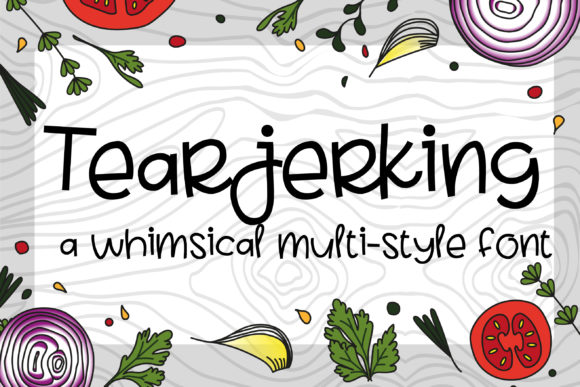
Dive into the enchanting world of Tearjerking Font, a stunning script font family that evokes emotions with every stroke. Created by the talented minds at Illustration Ink, this font is a true masterpiece, seamlessly blending serifs, script elements, and sans serifs into a cohesive work of art.
With its playful and quirky personality, Tearjerking Font captivates the heart with its unique charm. Each character dances and flows, exuding a touch of nostalgia and a dash of whimsy. Whether you're creating heartfelt messages, designing captivating logos, or crafting beautiful invitations, this font will add an undeniable charm to your projects.
Immerse yourself in the versatility of Tearjerking Font, a font that effortlessly adapts to a wide range of design styles. From delicate wedding invitations to bold and eye-catching headlines, this font shines in its ability to transform your words into captivating visual expressions. Its adaptability makes it the perfect choice for designers, crafters, and anyone looking to add a touch of creativity to their projects.
Embrace the power of Tearjerking Font, a font that speaks to the soul. Its unique combination of elements creates a visual experience that transcends ordinary fonts. With its ability to evoke emotions and capture attention, this font is sure to leave a lasting impression on your audience. Discover the magic of Tearjerking Font today and elevate your designs to new heights.